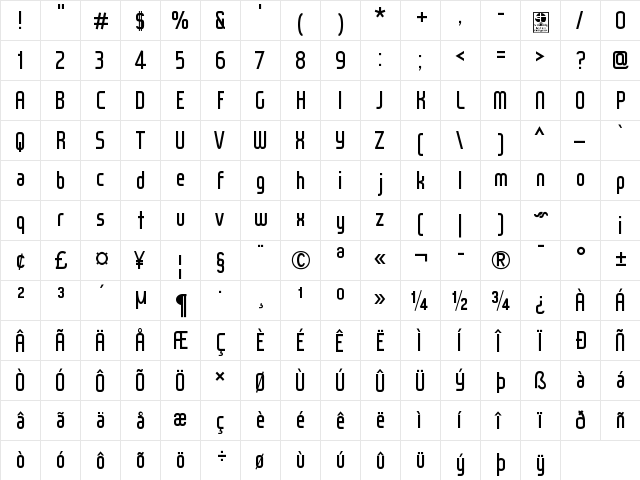
WOX~Modelist Demo Regular
Design Context for WOX~Modelist Demo Typeface
WOX~Modelist Demo offers clean, dependable letterforms without strong stylistic allegiance, making it a practical choice for designers who need flexibility.